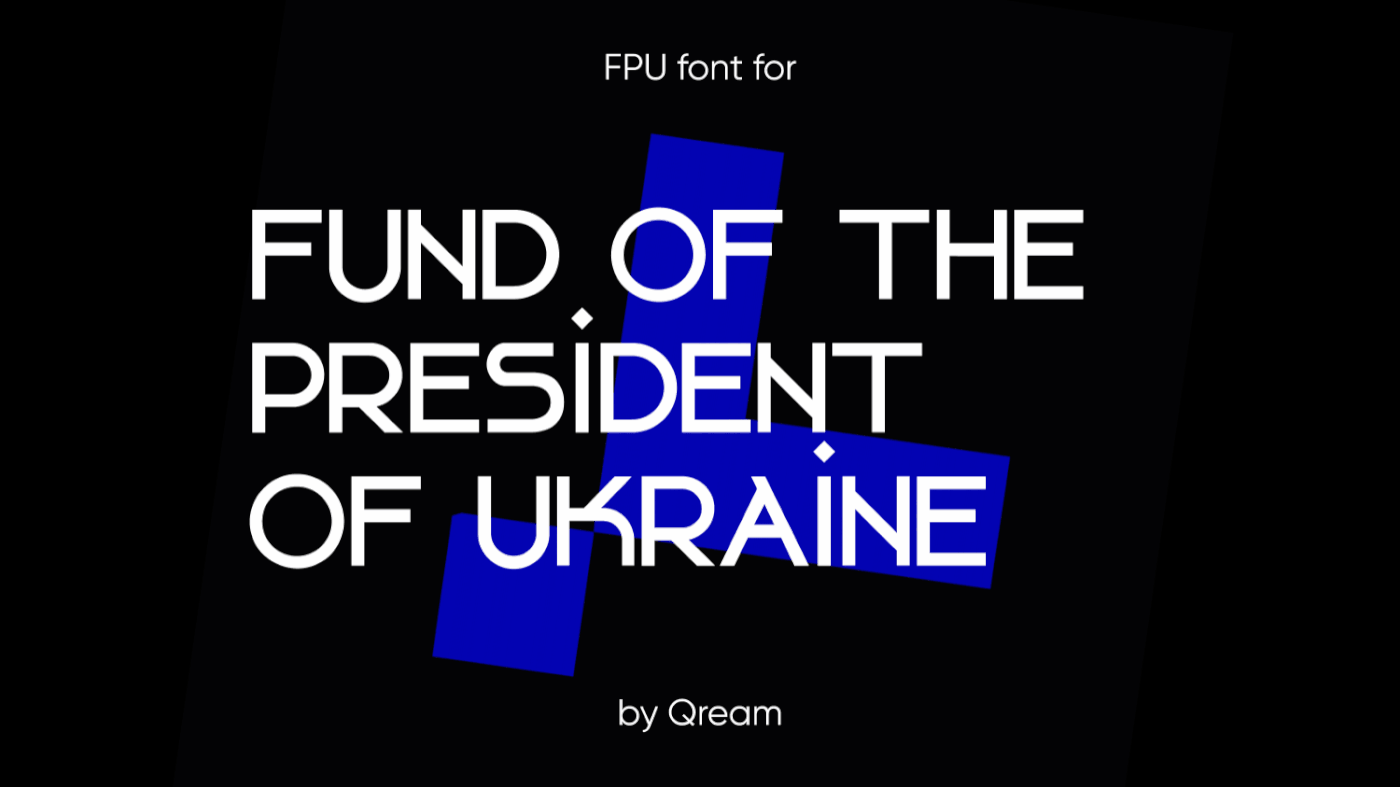
FPU is a custom font created for the Fund of the President of Ukraine. The branding for the project was inspired by Ukrainian national symbols. The general idea is to promote unique Ukrainian design, which plays an important role in creating the image of Ukraine in the modern world.
FPU is a contemporary sans-serif display font with pronounced curvy shapes, that are reinterpreted and based on modernism. It supports both Сyrillic and Latin languages. The font fits perfectly for headings and looks authentic in design that needs a bold impression.
The font expresses Ukrainian Folk motives through the Latin alphabet.
Which is a tool for spreading the word about talented Ukraine to the globe.